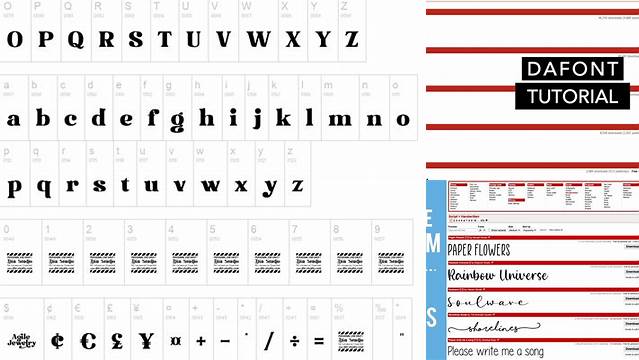
DaFont: Find Free Fonts For Personal Use
Are you on the hunt for free fonts for personal use? Look no further than DaFont, a treasure trove for designers and creatives alike! This guide dives deep into the world of free fonts available on DaFont, ensuring you can find the perfect typeface for your next project without breaking the bank. We'll explore how to navigate the site, understand licensing, and discover some hidden gems. So, let's get started and unleash your creativity with DaFont's vast collection of free fonts!
What is DaFont and Why is it a Great Resource for Free Fonts?
DaFont is a massive online archive boasting thousands of free fonts contributed by designers from around the globe. It's a fantastic resource, especially if you're just starting out or need a unique font for a personal project without the hefty price tag. The platform's user-friendly interface allows you to easily browse fonts by category, such as script, sans-serif, serif, decorative, and more. You can also preview how text will look in a specific font before downloading it, which is incredibly helpful in making the right choice. Guys, this is like a playground for font lovers! Seriously, the sheer volume of options can be a bit overwhelming at first, but trust me, that’s a good problem to have. DaFont really shines when it comes to niche styles and quirky fonts you might not find on more mainstream platforms. Think about it – you need a font that looks like it was handwritten by a pirate for a party invitation? DaFont probably has you covered. Or maybe you’re going for a futuristic, cyberpunk vibe for a personal website? You’ll likely stumble upon several contenders there too. The beauty of DaFont lies in its diversity and its community-driven nature. Independent designers often upload their creations there, making it a hub for discovering fresh and unconventional typefaces. But with great power comes great responsibility, as they say. It's crucial to understand the licensing terms associated with each font, and that’s where our guide comes in handy. We'll walk you through navigating the site, understanding those licenses, and making sure you’re using these fantastic fonts in the right way. Because nobody wants a font-related legal headache, right? So, buckle up, font fanatics! We're about to embark on a journey into the depths of DaFont, where free fonts abound and your design dreams can come to life. Get ready to download, experiment, and create something amazing!
How to Find Free Fonts on DaFont for Personal Use
Finding free fonts for personal use on DaFont is a breeze once you know the ropes. The site's intuitive interface offers several ways to filter and search for the perfect typeface. You can start by browsing the categorized sections, such as fancy, foreign look, techno, gothic, basic, script, and more. This is a great way to discover fonts that fit a specific theme or style. Alternatively, you can use the search bar to look for fonts based on keywords, like “handwritten,” “bold,” or “vintage.” One of the most helpful features is the filter option, which allows you to narrow your search by license type. Simply select the “Free for Personal Use” option to see only fonts that are available for non-commercial projects. This saves you a lot of time and ensures you're only browsing fonts you can use without needing a commercial license. Another handy trick is to sort the fonts by popularity or recency. Sorting by popularity can help you discover fonts that are widely used and loved by other designers. Sorting by recency allows you to see the latest additions to DaFont's collection, ensuring you're always on top of the newest trends. When you find a font that catches your eye, click on it to view its details. The font page provides a preview of the font in various sizes and styles, as well as information about the designer and the license. Make sure to read the license carefully before downloading the font. As we discussed earlier, understanding the licensing terms is crucial for using free fonts responsibly. DaFont also allows you to type in your own text to see how it will look in the font. This is an excellent way to ensure the font is a good fit for your project. You can adjust the font size and color to get a better idea of its overall appearance. Guys, don't underestimate the power of the preview! It can save you from downloading a font that doesn't quite match your vision. And finally, don't forget to explore the “Similar Fonts” section on the font page. DaFont will suggest other fonts that are similar in style, which can lead you to even more exciting discoveries. So, go ahead and dive into the world of DaFont! With its vast collection of free fonts and user-friendly interface, you're sure to find the perfect typeface for your next personal project.
Top Categories of Free Fonts for Personal Use on DaFont
DaFont offers a diverse range of font categories, making it easy to find free fonts for personal use that suit your specific needs. Let's explore some of the most popular categories and what they offer:
Script Fonts: Script fonts mimic handwriting and calligraphy, adding a personal and elegant touch to your designs. They're perfect for invitations, greeting cards, and other projects where you want to convey warmth and authenticity. Within the script category, you'll find everything from elegant and formal scripts to playful and casual handwritten styles. Think swirling flourishes and graceful curves for a wedding invitation, or a more relaxed, brush-stroke script for a fun birthday card. The possibilities are endless! Guys, script fonts can really elevate your designs, but use them sparingly. Too much script can become difficult to read, so it's best to pair them with a simpler font for body text.
Sans-Serif Fonts: Sans-serif fonts are characterized by their clean and modern appearance, lacking the small decorative strokes (serifs) found in serif fonts. They're highly versatile and work well for a wide range of applications, including websites, logos, and body text. The sans-serif category is a workhorse in the design world. These fonts are known for their readability and versatility. They come in a variety of weights and styles, from thin and delicate to bold and impactful. A clean sans-serif font can give your design a contemporary and professional feel. They’re the go-to choice for many designers when creating logos or websites because of their clarity and modern aesthetic.
Serif Fonts: Serif fonts have small decorative strokes (serifs) at the ends of their letterforms, giving them a classic and traditional look. They're often used in print design, such as books and magazines, but can also be effective in digital applications. Serif fonts evoke a sense of tradition and elegance. They're often associated with authority and trustworthiness, which is why you see them frequently in newspapers and books. Think of the classic Times New Roman – a quintessential serif font. But the serif category extends far beyond that. You'll find a range of styles, from delicate and refined serifs to bolder, more impactful ones. A well-chosen serif font can add a touch of sophistication to your designs.
Decorative Fonts: Decorative fonts are designed to be eye-catching and unique, often featuring unusual shapes and styles. They're ideal for headlines, posters, and other projects where you want to make a statement. The decorative fonts category is where things get really fun! This is where you'll find fonts that are quirky, whimsical, and downright out-there. Think fonts that look like they're made of dripping paint, or fonts inspired by vintage circus posters. Decorative fonts are perfect for adding personality and flair to your designs. They're best used in small doses, though, as they can be overwhelming if used extensively. Use them for headlines, logos, or to add a unique touch to a specific element of your design.
Gothic Fonts: Gothic fonts, also known as blackletter fonts, have a bold and dramatic appearance, reminiscent of medieval manuscripts. They're often used for designs that evoke a sense of history or mystery. Gothic fonts command attention. They're characterized by their thick strokes, sharp angles, and ornate details. These fonts can add a touch of drama and intrigue to your designs. They're often used for posters, album covers, and other projects where you want to make a bold statement. Because of their strong visual impact, Gothic fonts are best used sparingly. A little bit of Gothic can go a long way!
Exploring these categories on DaFont will help you discover a world of free fonts to enhance your personal projects. Remember to always check the license before using a font, and have fun experimenting with different typefaces to find the perfect match for your design.
Tips for Using Free Fonts Effectively in Your Personal Projects
Now that you've discovered the vast collection of free fonts for personal use on DaFont, let's talk about how to use them effectively in your projects. Just because a font is free doesn't mean it's automatically the right choice. Here are some tips to help you make the most of your free font finds:
Readability is Key: First and foremost, ensure your font is readable. A beautiful font is useless if your audience can't easily decipher the text. Avoid overly decorative or complex fonts for body text. Stick to clear and legible fonts like sans-serif or serif fonts for larger blocks of text. Guys, this seems obvious, but it's a common mistake. Don't let aesthetics overshadow functionality. If your text is difficult to read, people will simply skip over it.
Consider Your Project's Tone: The font you choose should align with the overall tone and message of your project. A playful script font might be perfect for a birthday invitation, but it wouldn't be appropriate for a formal business letter. Think about the emotions you want to evoke and choose a font that reflects those feelings. Is your project supposed to be fun and whimsical? Serious and professional? Elegant and sophisticated? The right font can help you communicate these messages effectively.
Limit Your Font Choices: Using too many fonts in a single project can create a cluttered and unprofessional look. Stick to a maximum of two or three fonts, and make sure they complement each other. A good rule of thumb is to pair a display font (a more decorative font used for headings) with a simpler font for body text. This creates visual interest without sacrificing readability.
Pay Attention to Kerning and Spacing: Kerning refers to the spacing between individual letters, while spacing refers to the overall space between words and lines. Adjusting these settings can significantly improve the readability and visual appeal of your text. Many design programs allow you to fine-tune kerning and spacing. Take the time to experiment with these settings to achieve a polished and professional look. Small adjustments can make a big difference in the overall appearance of your text.
Use Font Combinations Wisely: Experiment with different font combinations to create visual contrast and interest. Pairing a bold font with a light font, or a serif font with a sans-serif font, can add depth and dimension to your designs. There are tons of resources online that offer font pairing suggestions. You can also look at designs you admire and analyze the font combinations they use. Pay attention to how the fonts work together and try to apply those principles to your own projects. However, don't be afraid to break the rules and experiment! Sometimes the most unexpected combinations can create stunning results.
By following these tips, you can effectively use free fonts from DaFont to create visually appealing and impactful personal projects. Remember, the key is to choose fonts that are both aesthetically pleasing and functional, ensuring your message is communicated clearly and effectively.
Conclusion: Unleash Your Creativity with DaFont's Free Fonts
DaFont is a fantastic resource for anyone seeking free fonts for personal use. With its vast collection, user-friendly interface, and diverse range of categories, you're sure to find the perfect typeface for your next project. Just remember to always check the licensing terms before using a font, and follow our tips for using free fonts effectively. So, what are you waiting for? Go ahead and explore the world of DaFont and unleash your creativity with its amazing selection of free fonts! Guys, seriously, this is a treasure trove waiting to be explored. Whether you're a seasoned designer or just starting out, DaFont has something for everyone. So, dive in, experiment, and have fun! The world of typography is your oyster!